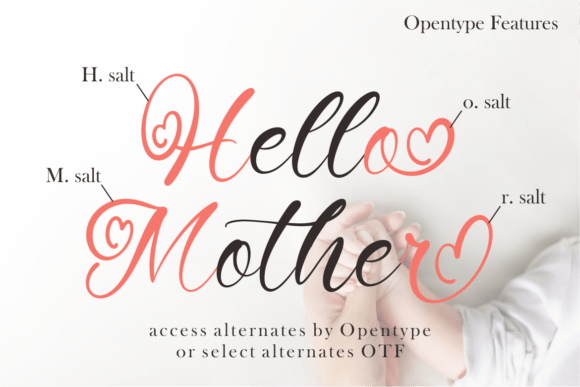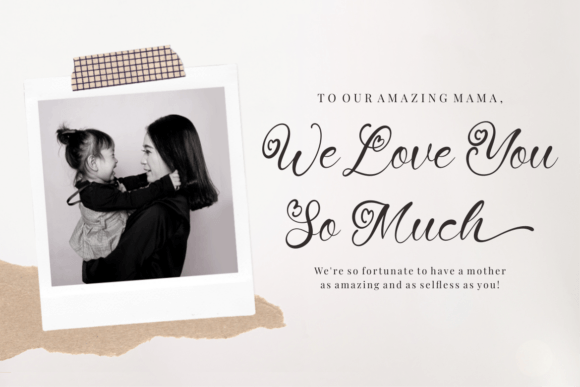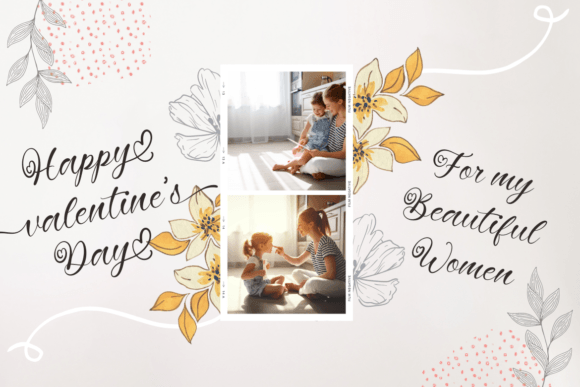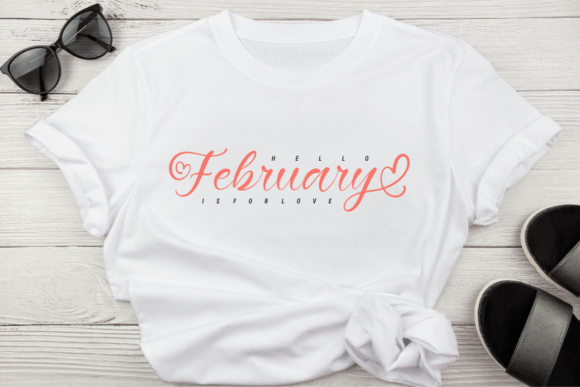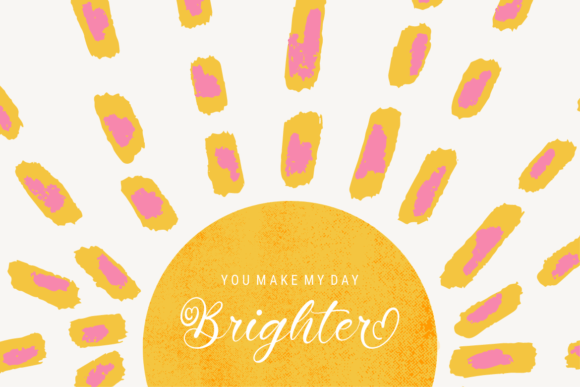
Hello Mother Font
Hello Mother is a lovely, stylish, and greatly detailed handwritten font. Very suitable for your Mother’s Day theme design, valentine, wedding, photography, and logos. This font will guarantee a romantic touch to each of your creations! This font is PUA encoded which means you can access all of the amazing glyphs and ligatures with ease!